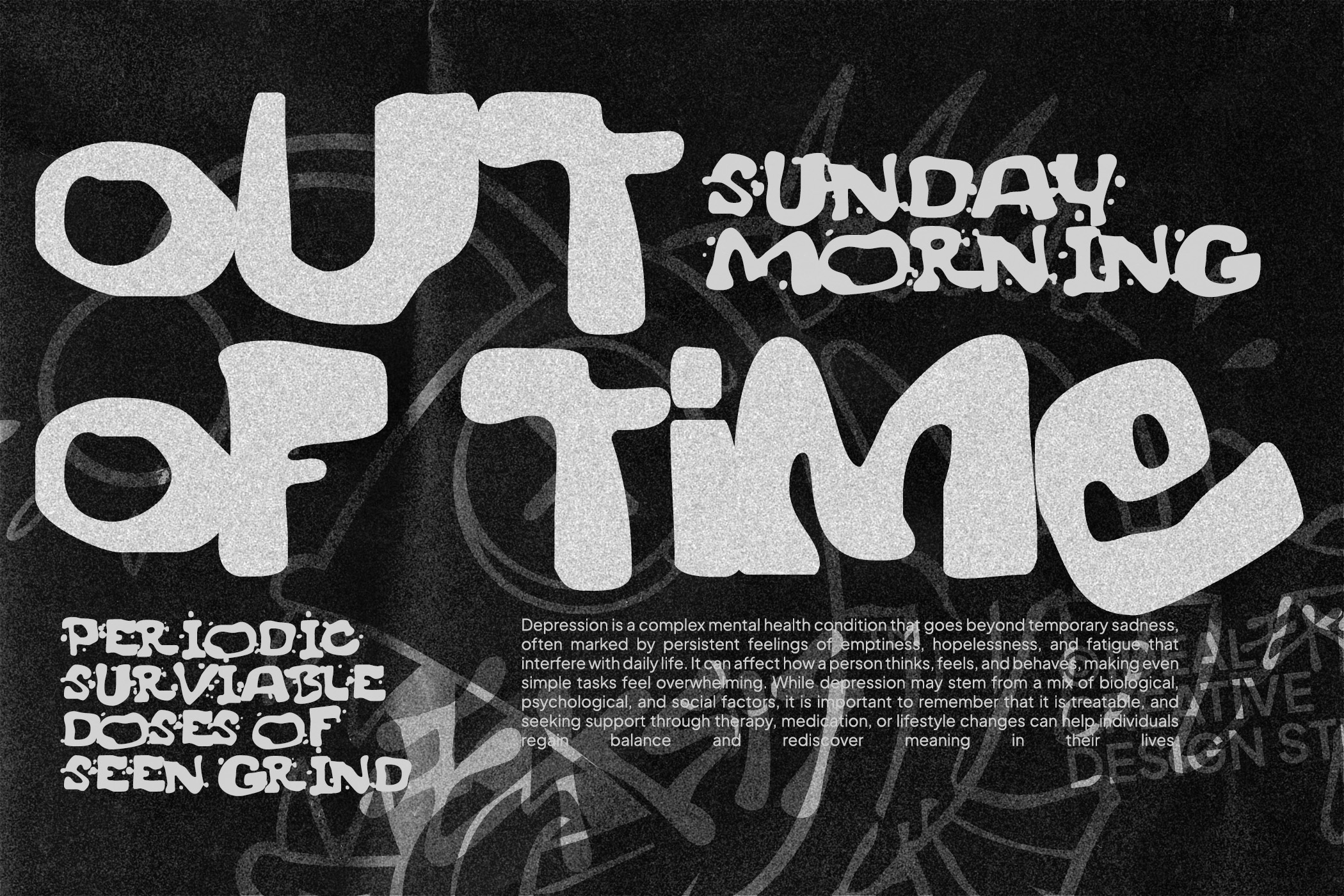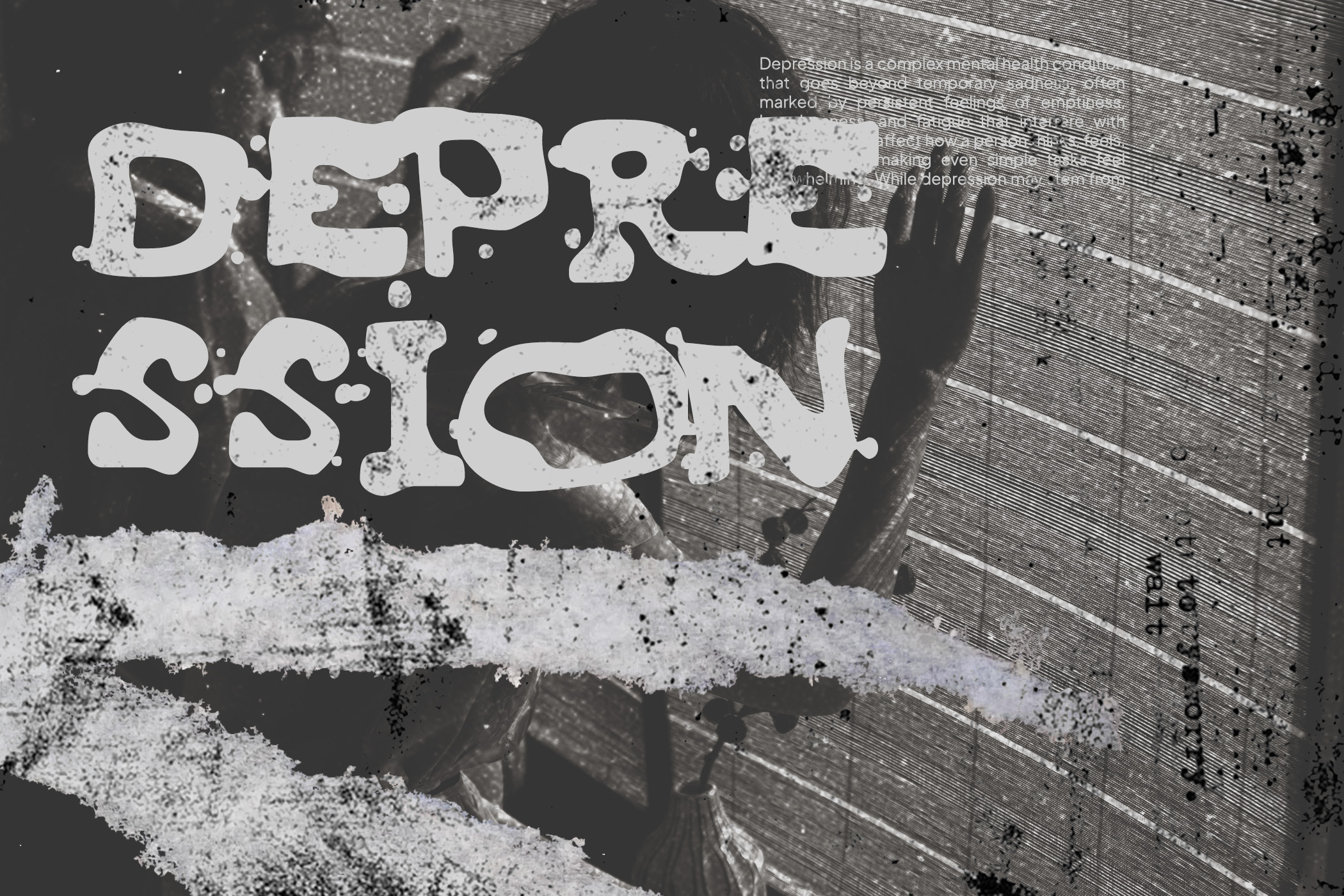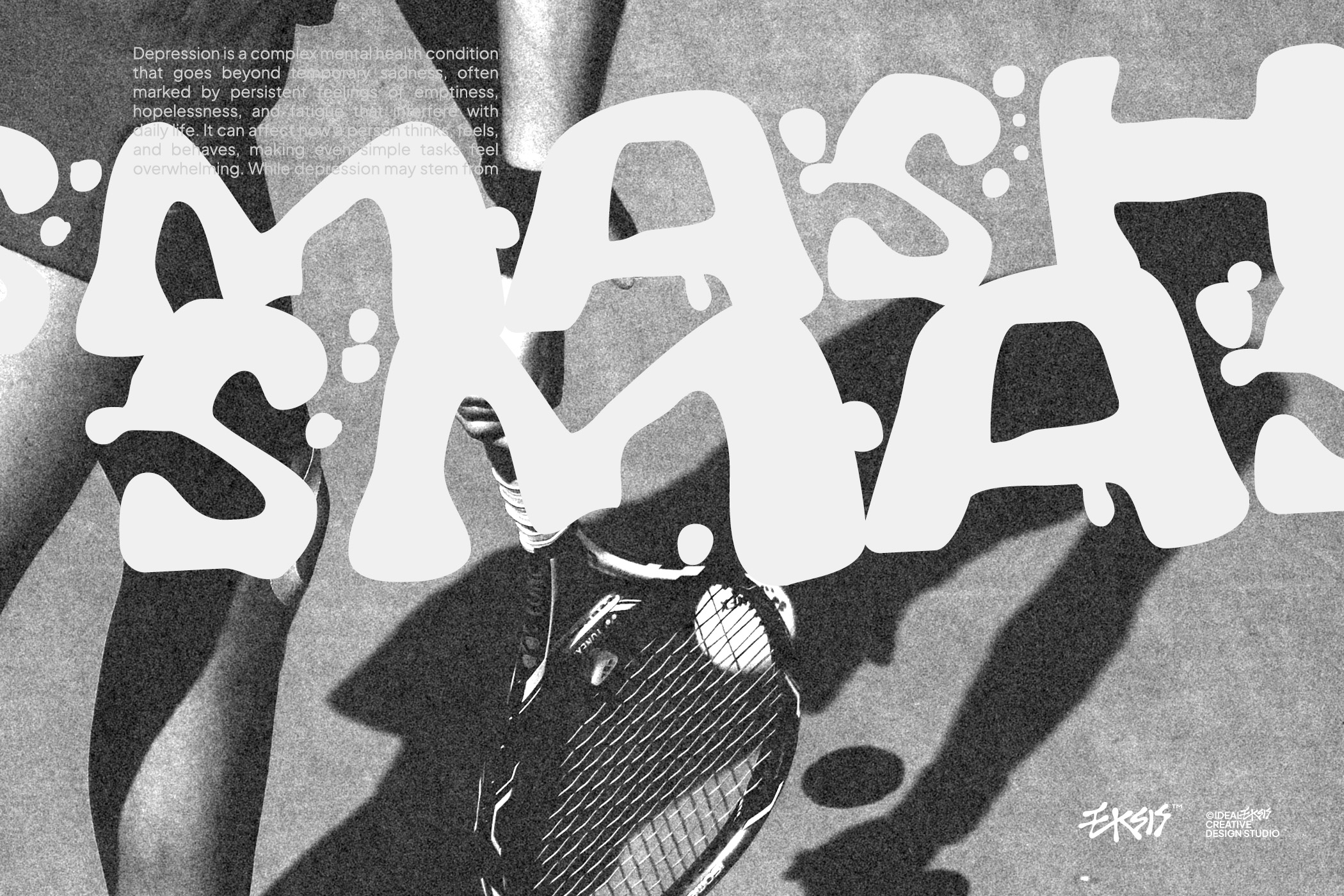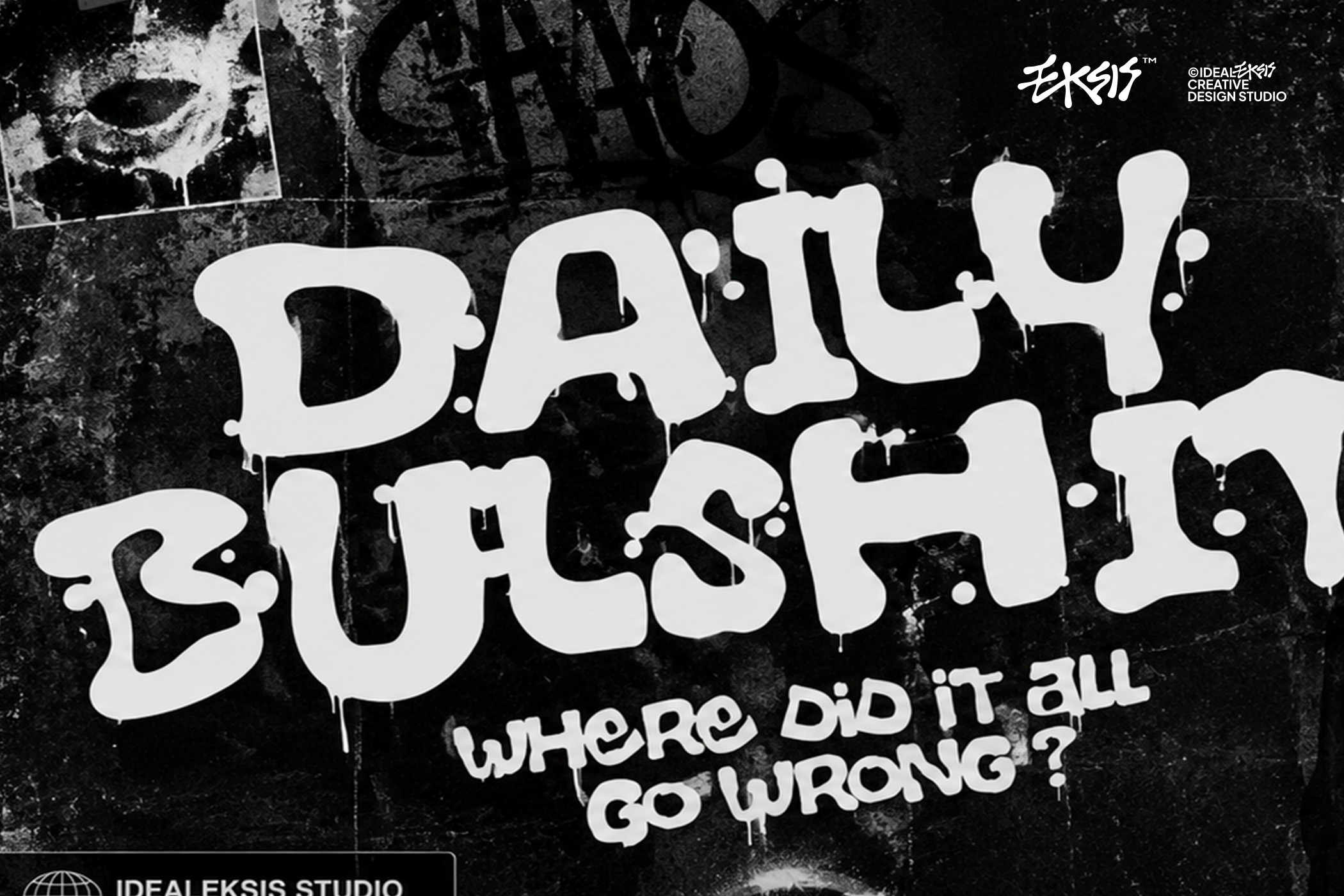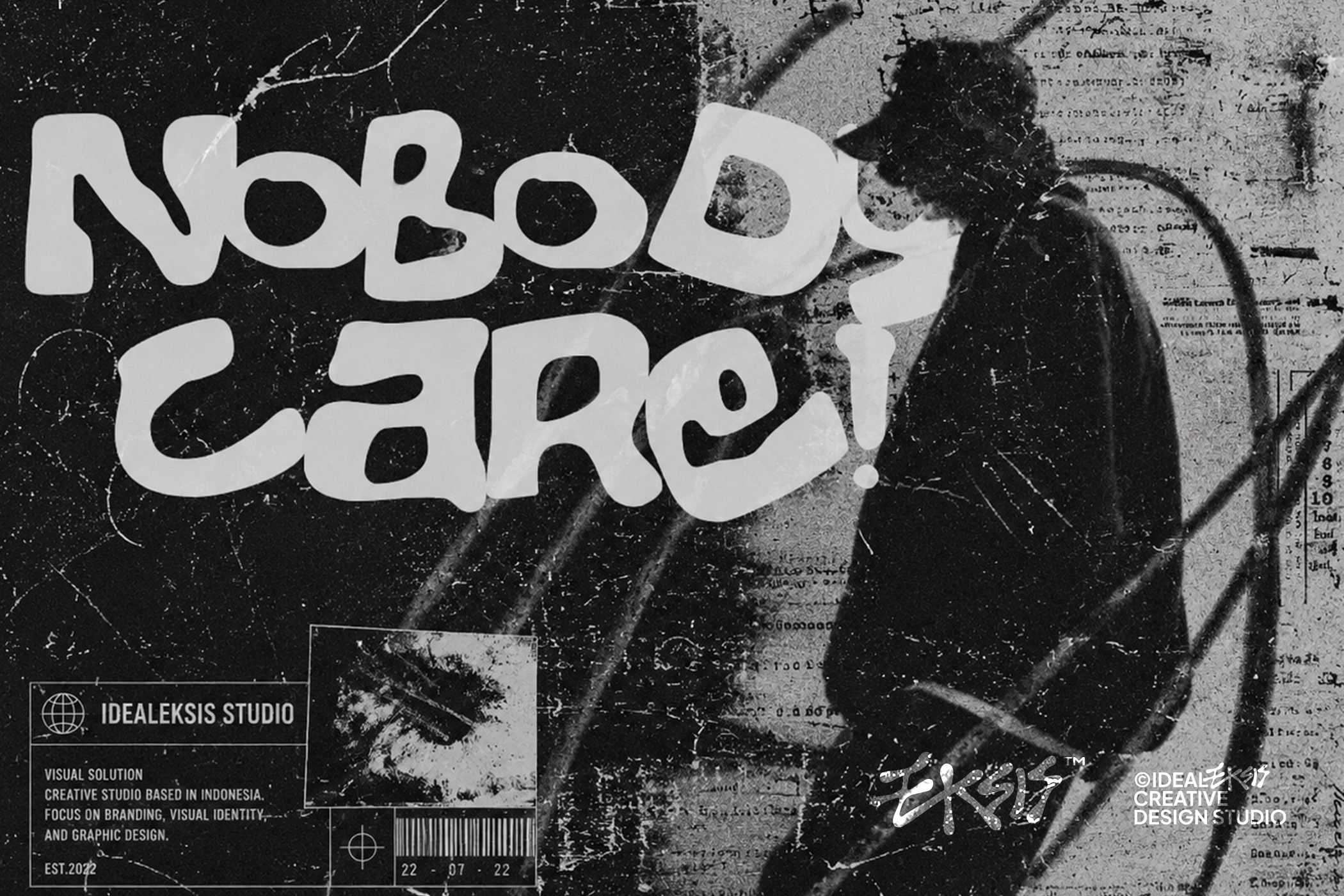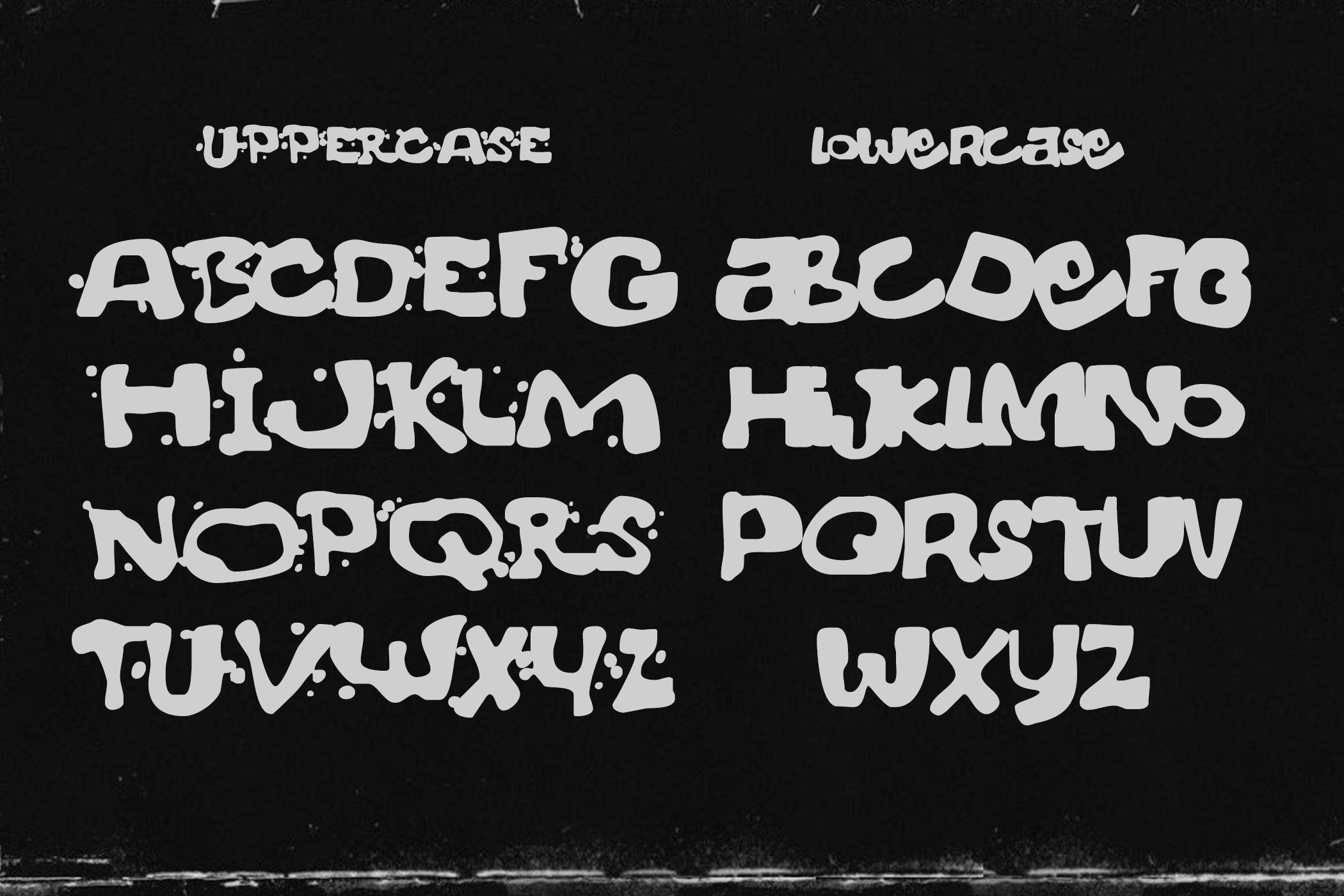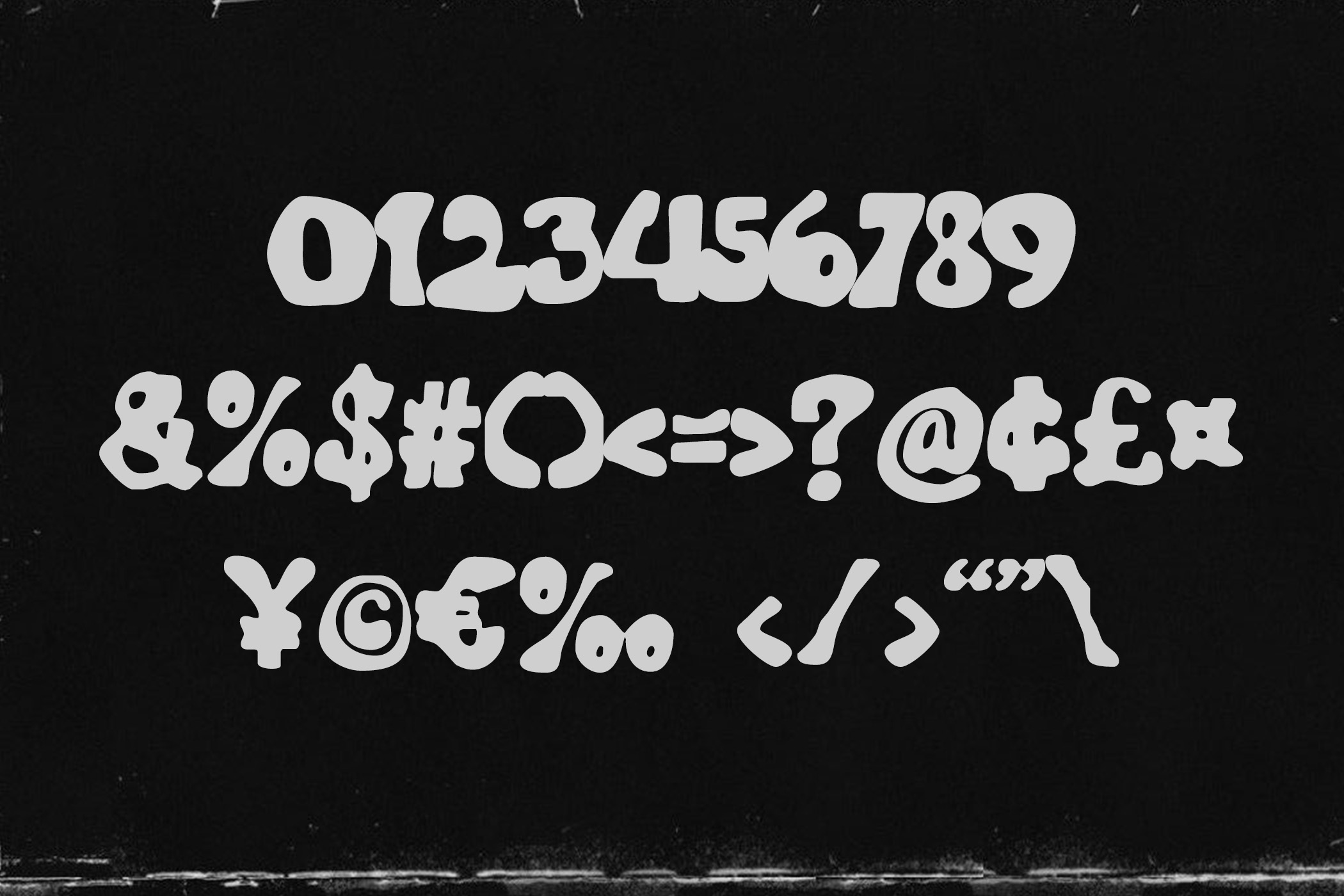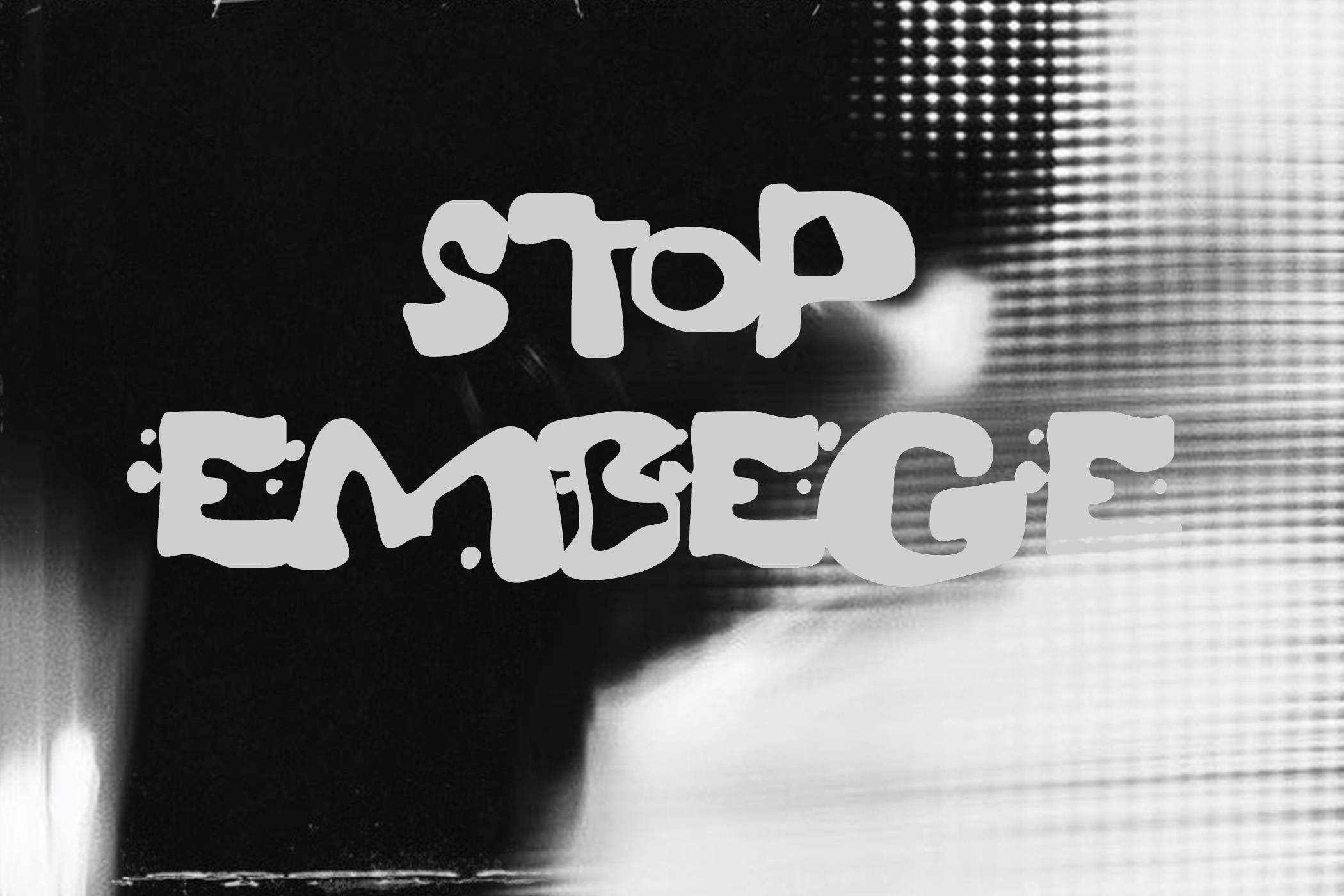
The typography showcases a highly stylized, liquid-like distortion that gives the letterforms a melting, organic appearance. Each character is rendered with an extreme, heavy weight and bulbous terminals that blend into one another, creating a fluid and psychedelic visual flow. The counters are significantly reduced and irregular, emphasizing the experimental and abstract nature of the design. This display style is characterized by its lack of uniform strokes, opting instead for a hand-drawn, molten aesthetic that evokes a sense of vintage grunge and avant-garde creativity. It is perfectly suited for bold editorial layouts, music-related graphics, and high-contrast poster designs.